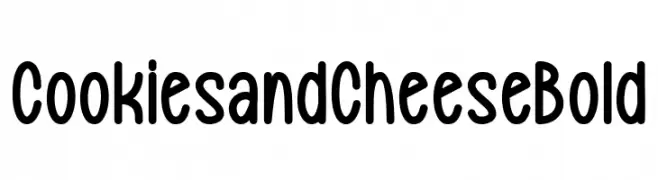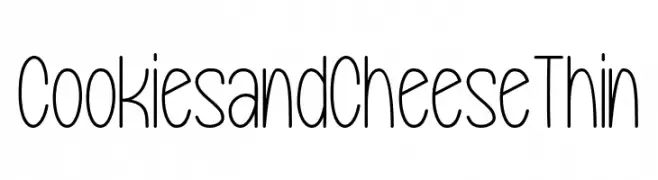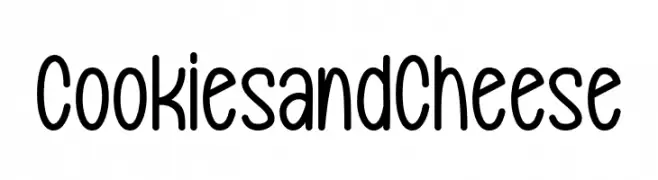
( Fonts by Maulana Creative )
A playful, casual handwritten font with smooth, flowing lines and a relaxed appearance.
( Fonts by Arif Studios )
A playful, handwritten font with a lively and informal style.
( Fonts by Khurasan™ )
A bold, rounded font with a playful and friendly style.
( Fonts by Scratchones )
A playful, bold font with rounded edges and a whimsical style.
( Fonts by bringtypestudio.co )
Playful and bold font with rounded edges.
( Fonts by bringtypestudio.co )
Playful, thin sans-serif font with elongated characters.
( Fonts by bringtypestudio.co )
Playful handwritten font with rounded edges.
( Fonts by Maulana Creative )
Playful handwritten script font.
( Fonts by uatype.faithweb.com - UnAuthorized Type )
A bold, dynamic font with exaggerated, swollen strokes and playful, cartoonish shapes.